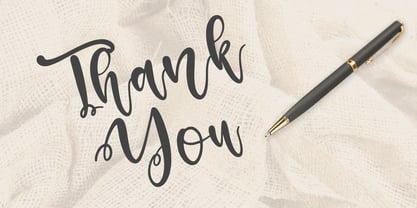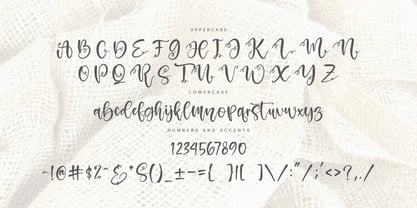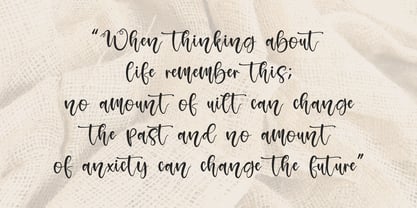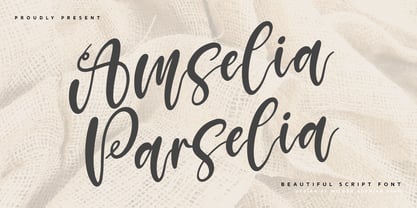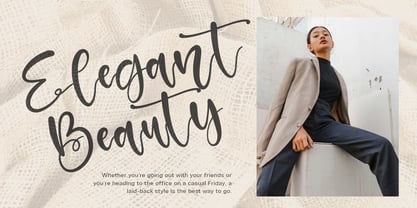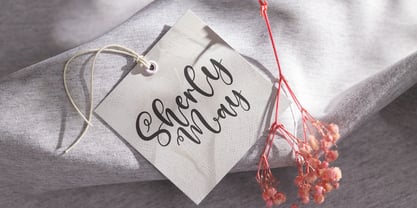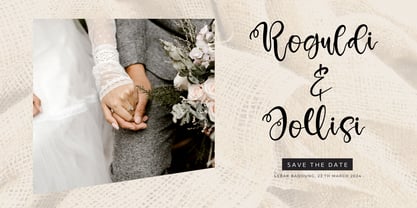
Amselia Parselia
by Wildan Type
The Amselia Parselia Font Family was designed by Wildan Suprian Syah and published by Wildan Type. Amselia Parselia contains 2 styles and family package options. More about this family
Amsalia Parselia is beautiful script font. The shape is modern and unique and the writing style is very natural. You can create many beautiful typographic designs in an instant like branding, web design and editorial, prints, crafts, quotes,
It's great for logotypes, wedding invitations, romantic cards, labels, packaging, spelling of names and others. Add to your most creative ideas and watch how they bring them to life!
Designers: Wildan Suprian Syah
Foundry: Wildan Type